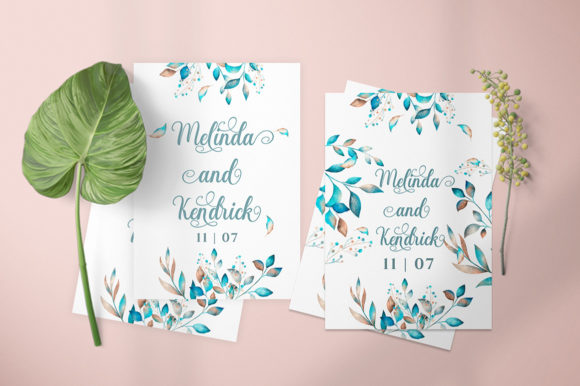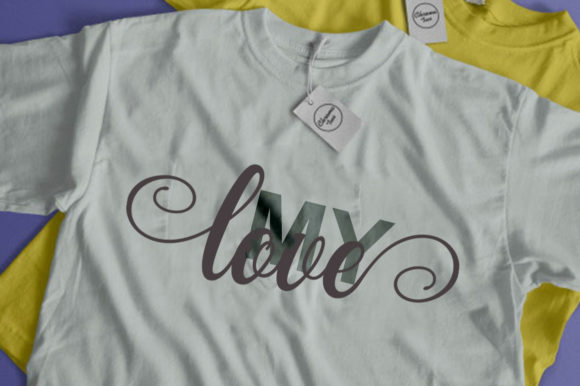
Maudhia Font
db-ku.com - Script & Handwritten -- Maudhia feels splendid and elegant. It looks beautiful on wedding invitations, thank you cards, quotes, greeting cards, logos, business cards and every other design which needs a customized touch.